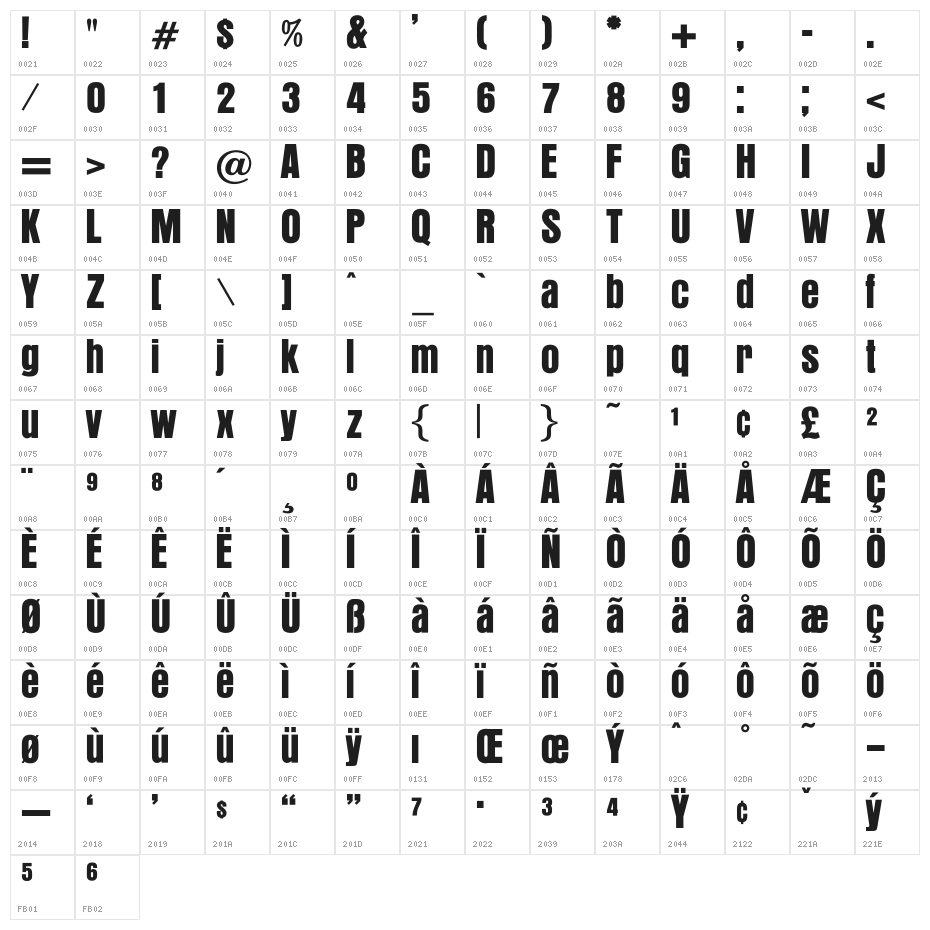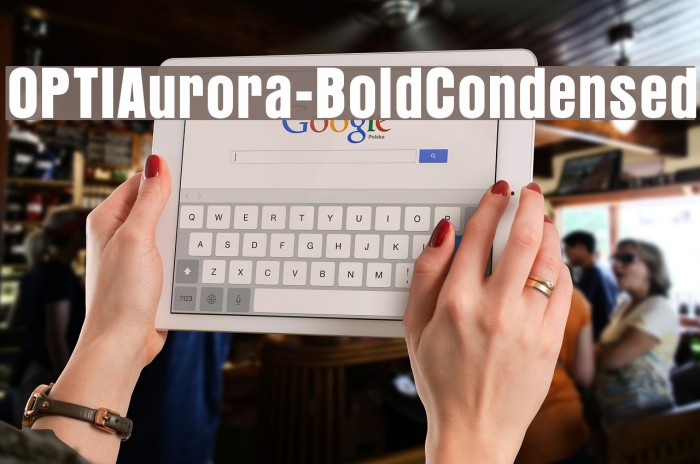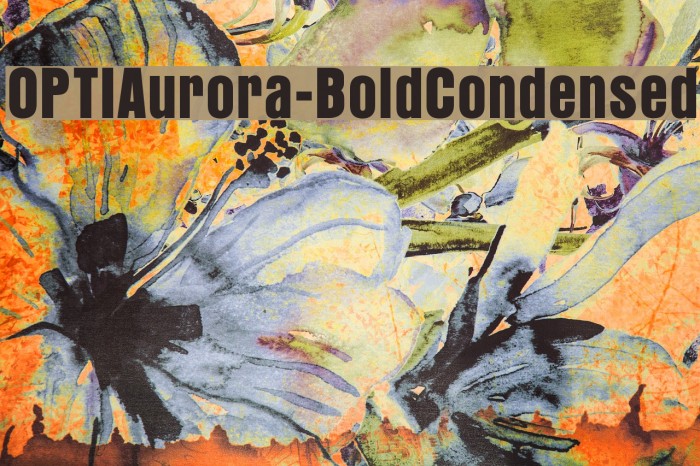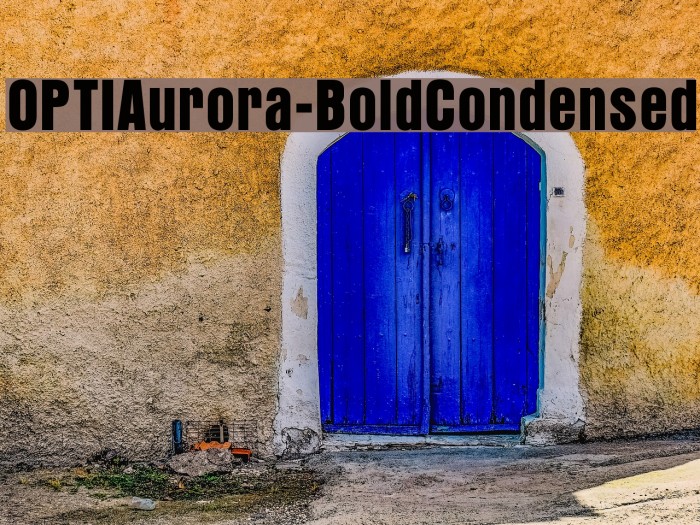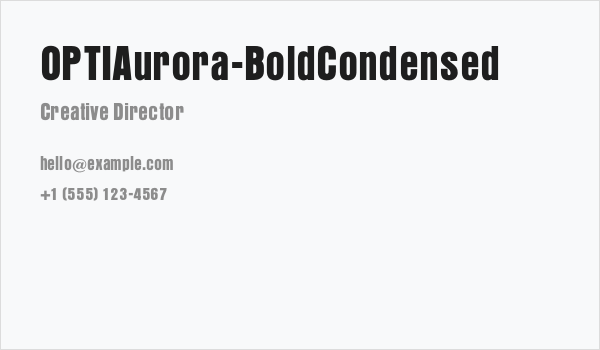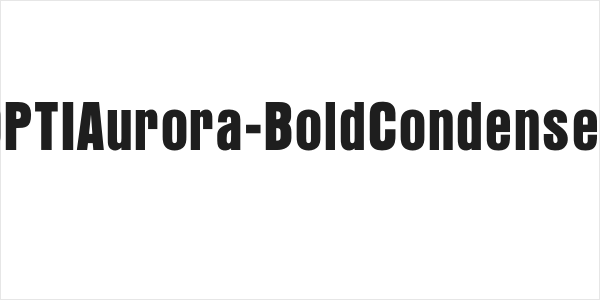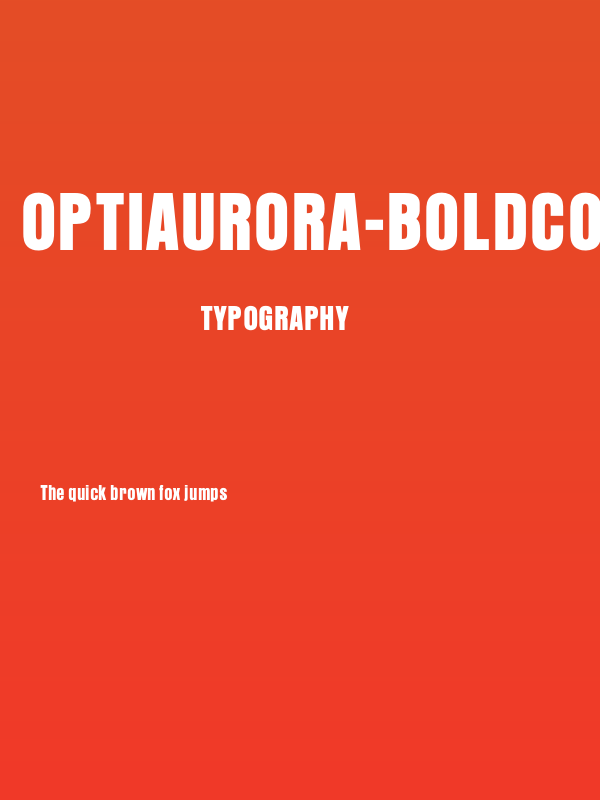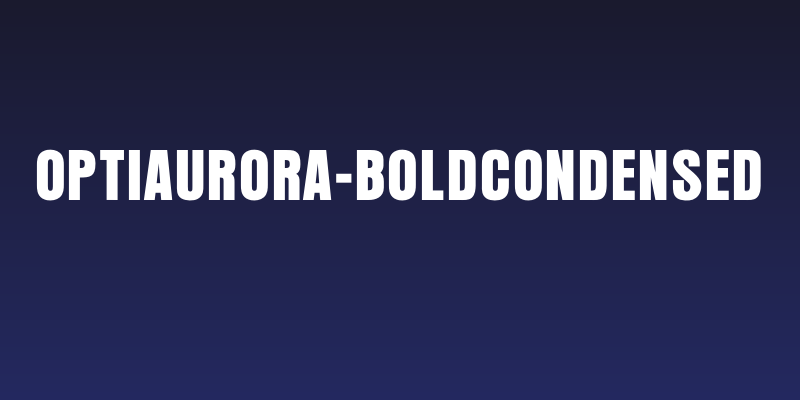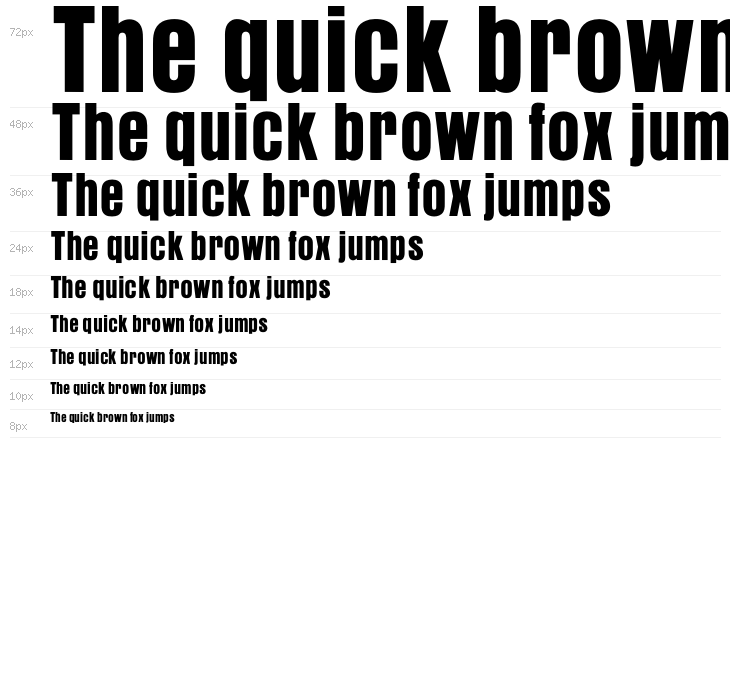
OPTIAurora-BoldCondensed Font
OPTIAurora-BoldCondensed Description
This font features a bold and condensed style, characterized by thick, uniform strokes that create a strong and impactful presence. The uppercase and lowercase letters are designed with a consistent width, enhancing readability while maintaining a compact form. The numerals and special characters follow the same bold aesthetic, ensuring a cohesive look across all text elements. Its geometric shapes and clean lines give it a modern and assertive appearance, making it suitable for attention-grabbing headlines and titles.
| Proposed Projects | Ideal for posters, advertising, branding, and any project requiring a strong visual impact. |